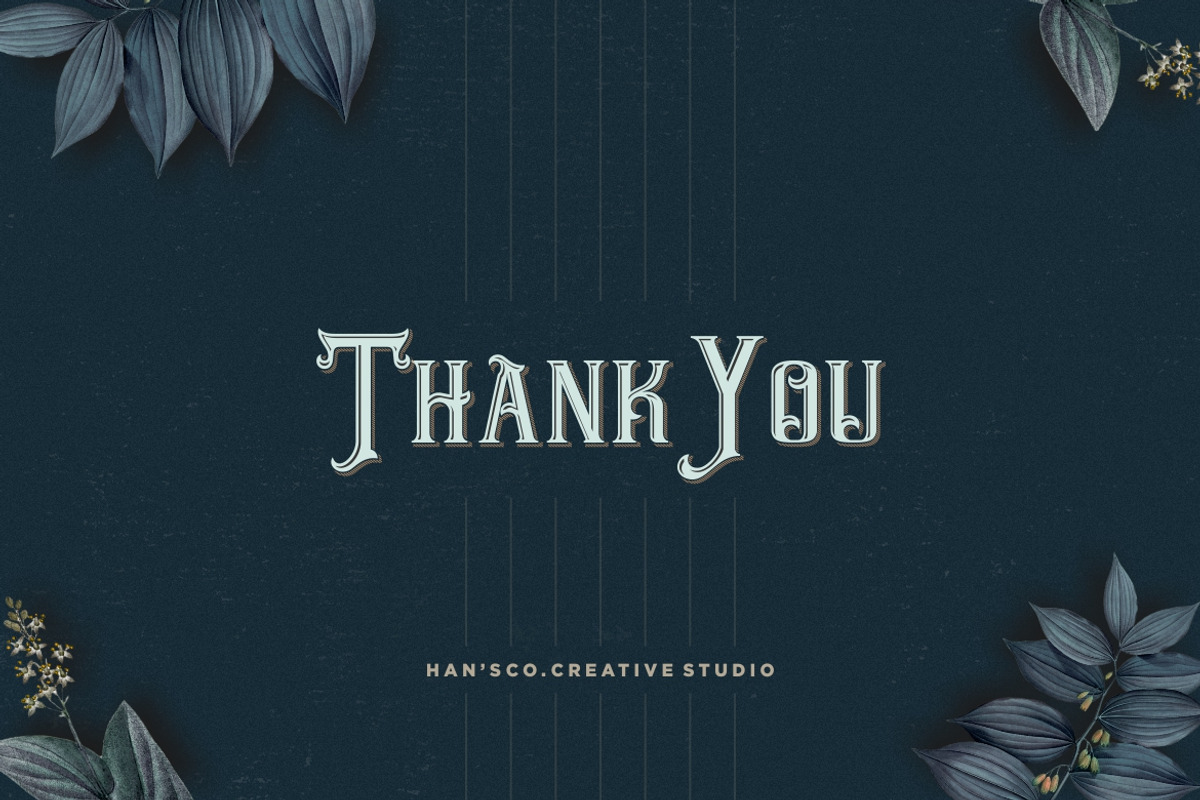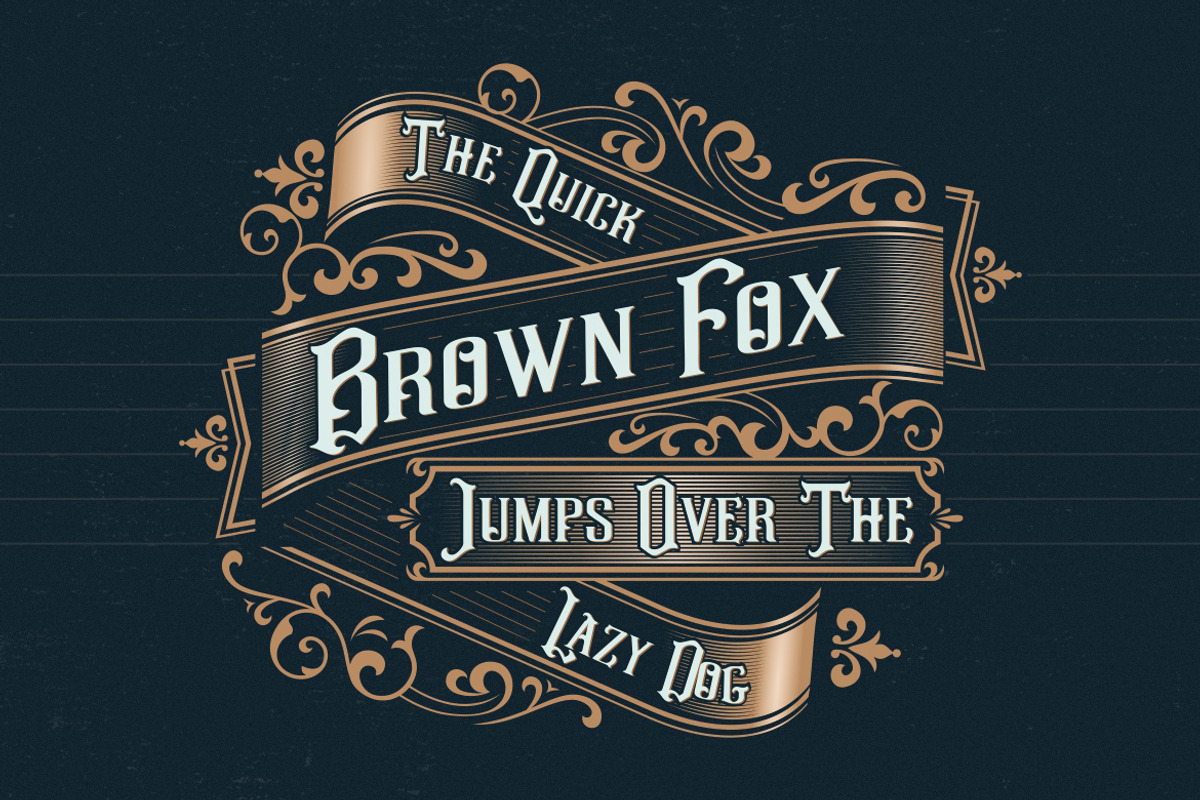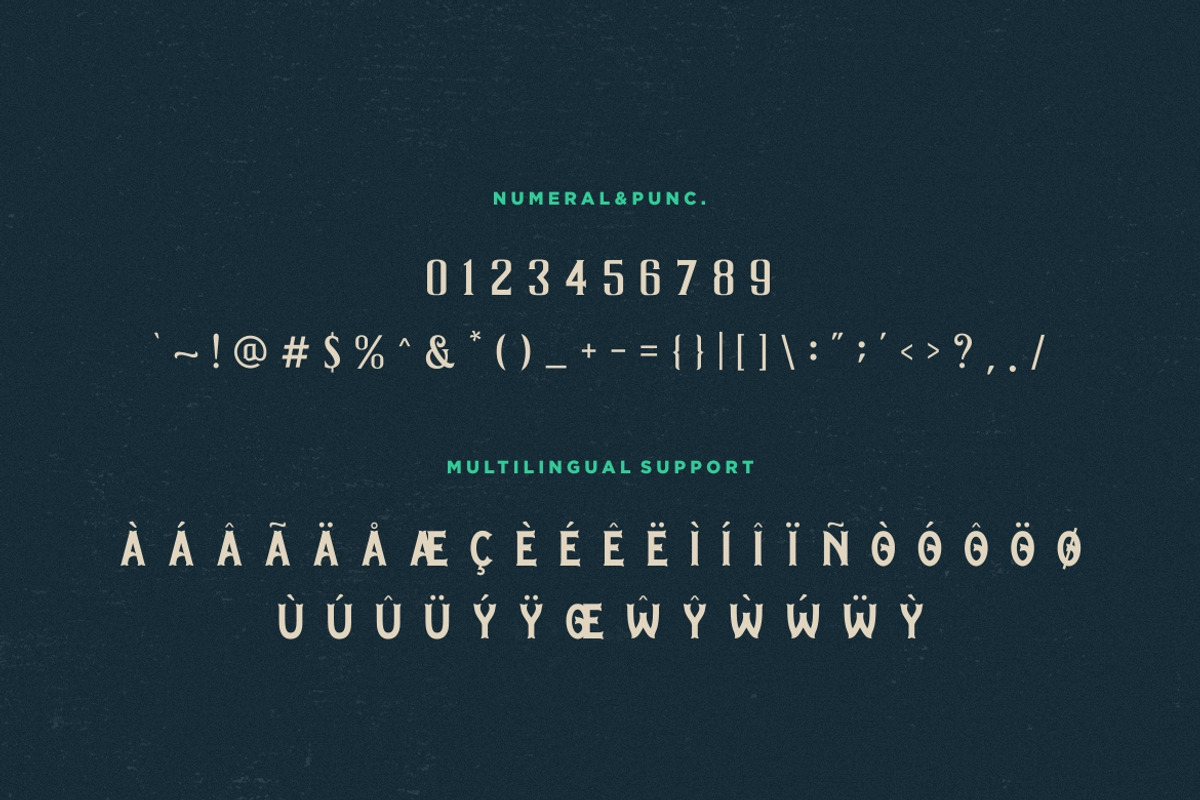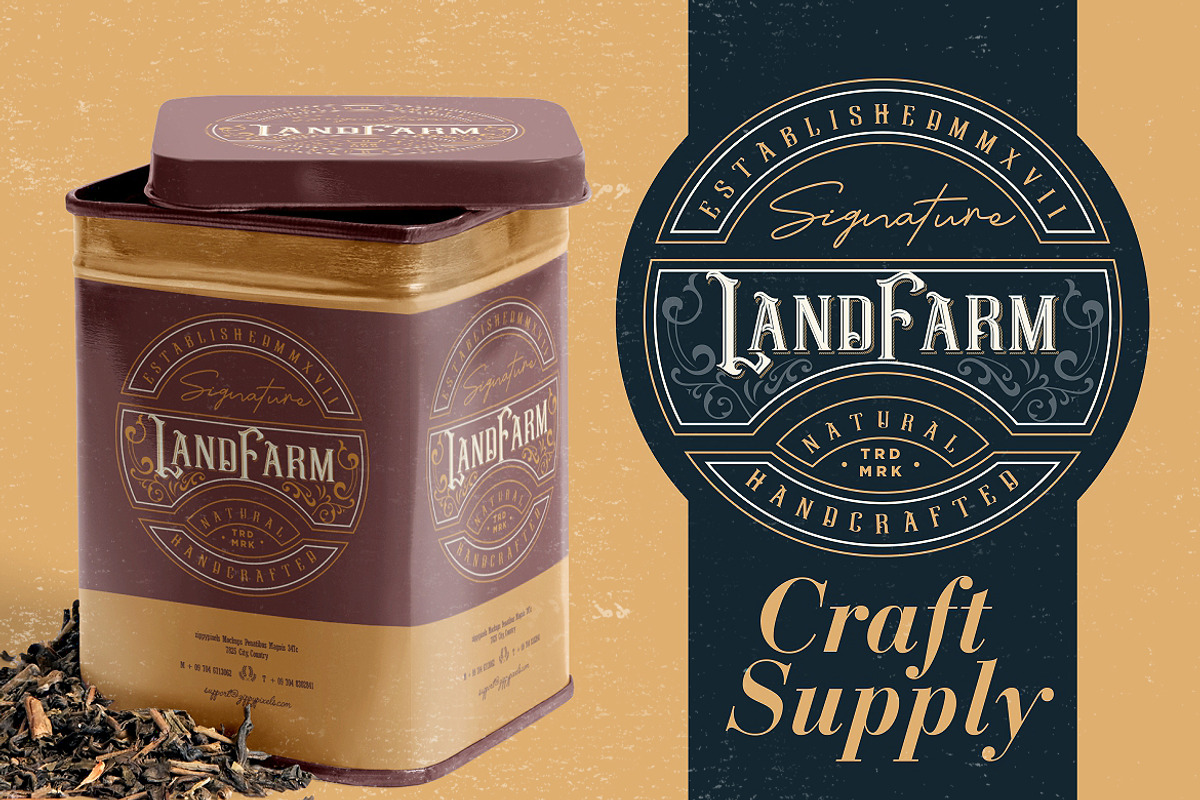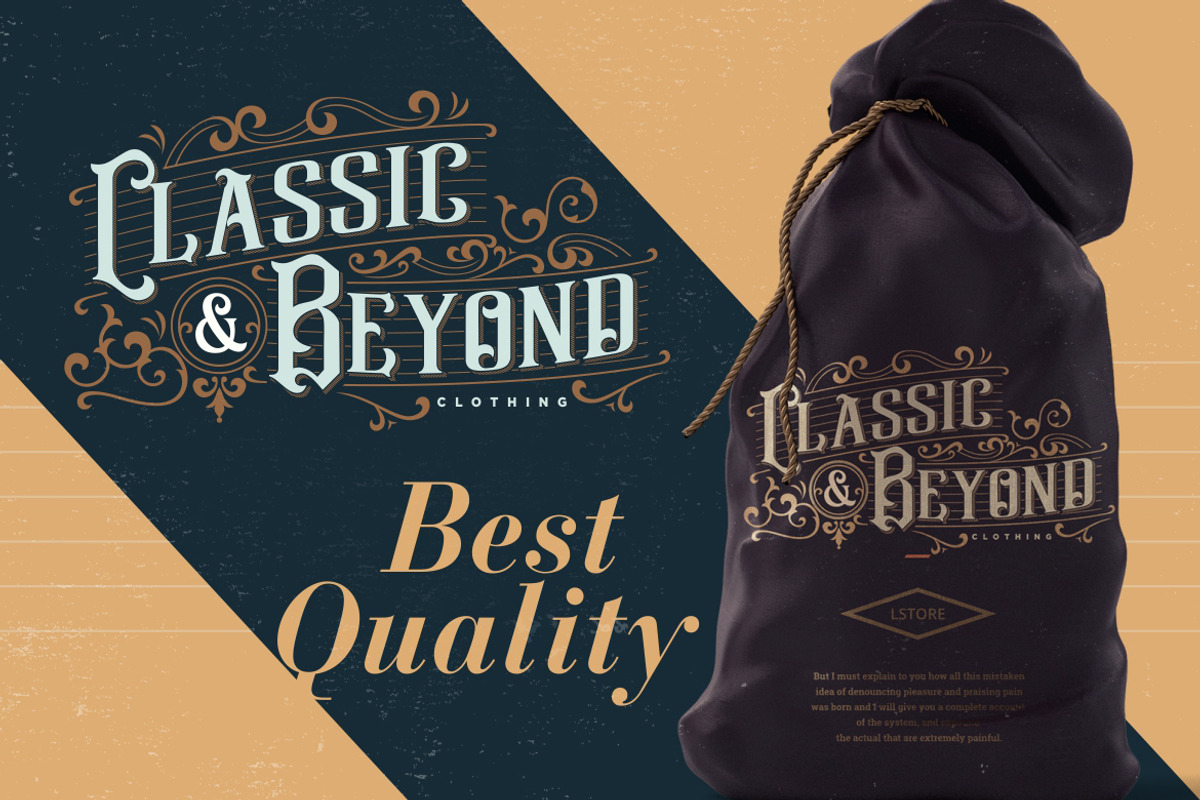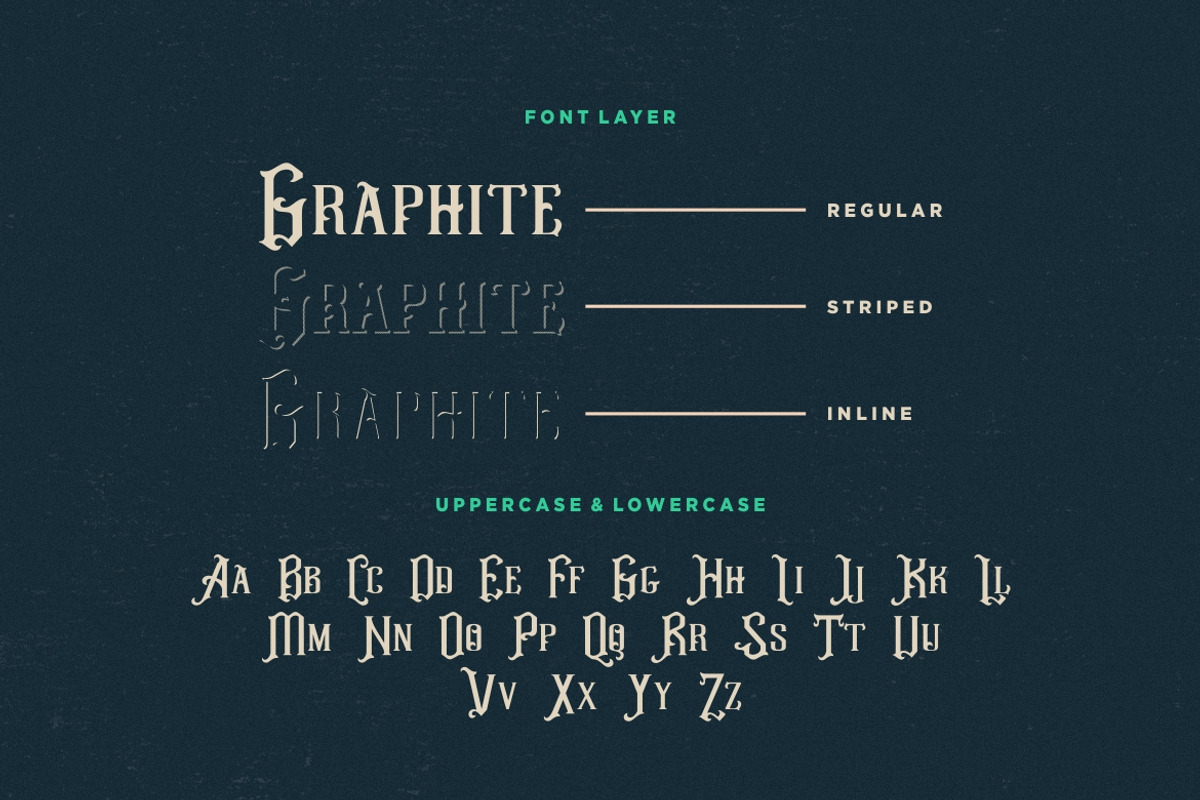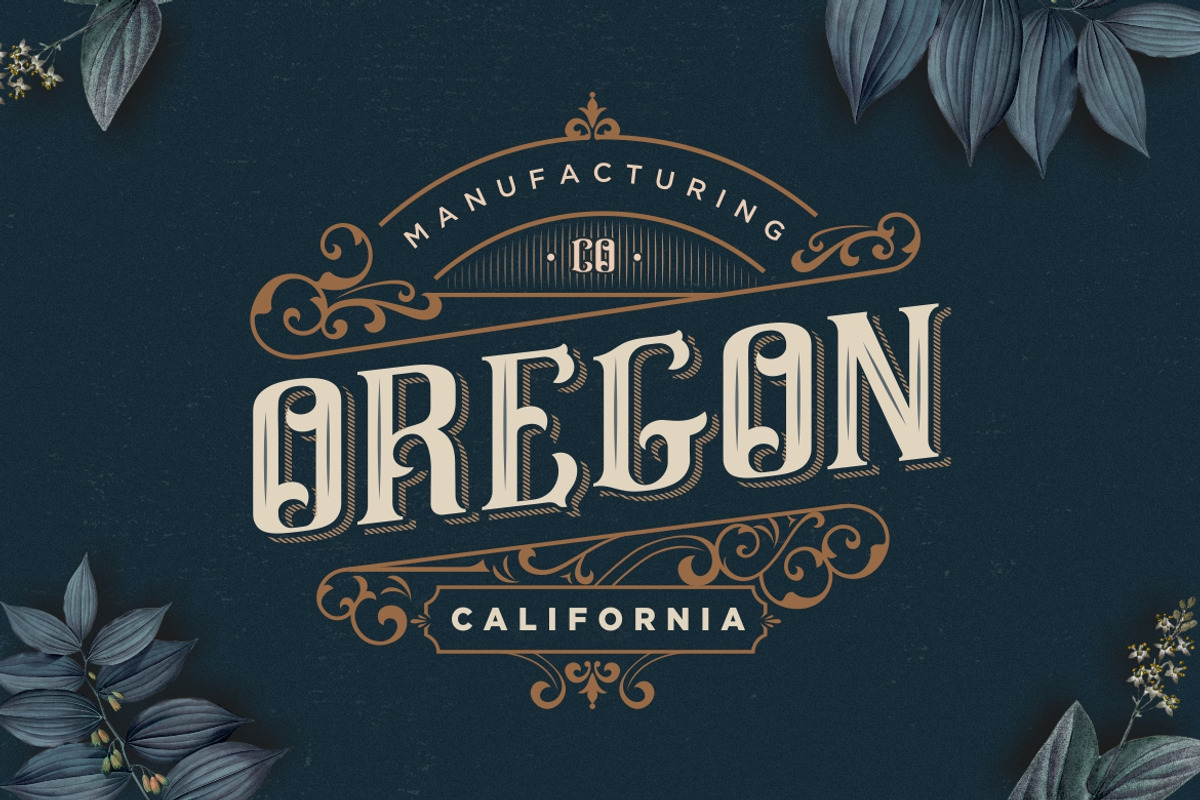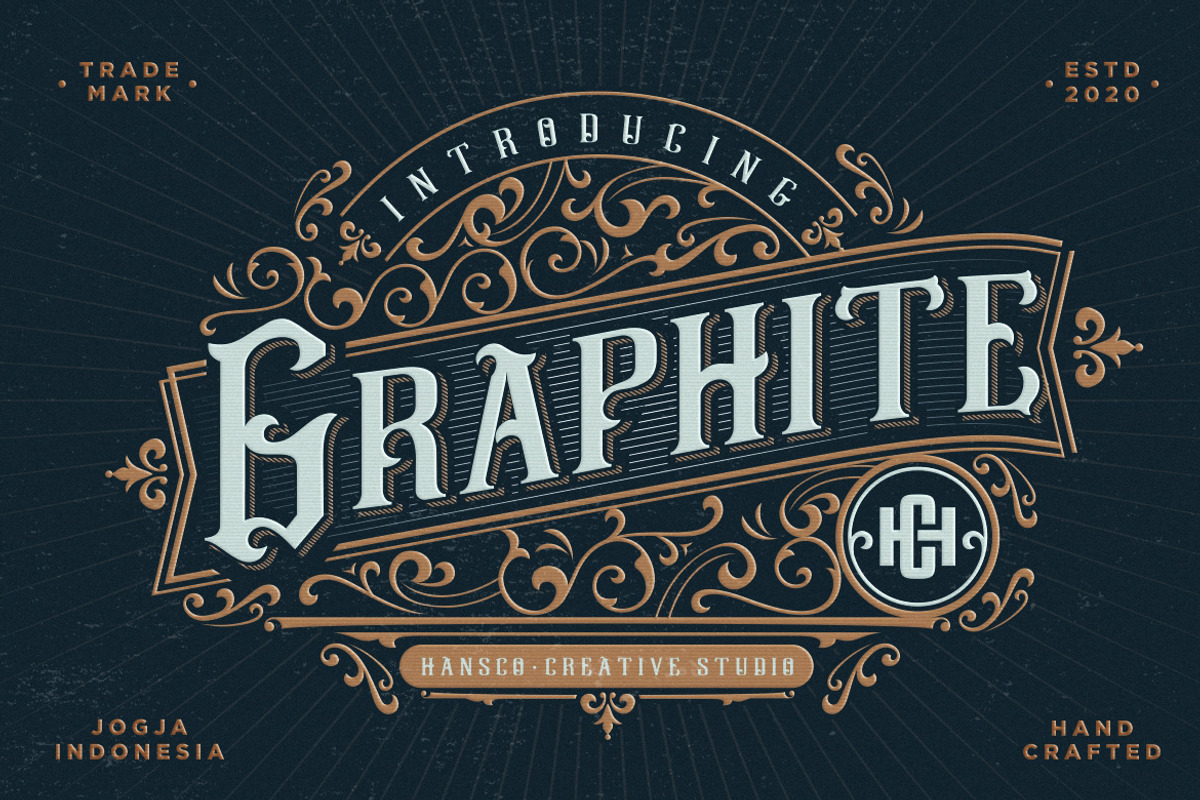
Graphite - Vintage Decorative Font
Graphite font is a layered typeface which is inspired by vintage lettering sign and art. While this font has a victorian touch, it still looks bold and solid. Very suitable for for packaging, headline, logotype, apparel, branding, advertising etc.